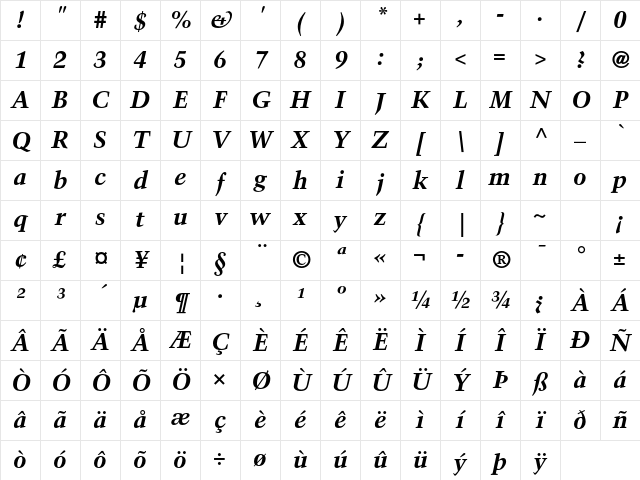
Trump Medival LT Std BoldIt Regular
Designer: Georg Trump
Design Context for Trump Medival LT Std BoldIt
Trump Medival LT Std BoldIt is a composed and adaptable typeface that performs quietly and consistently across a wide range of design contexts. Its bold stroke weight gives it real presence on the page.